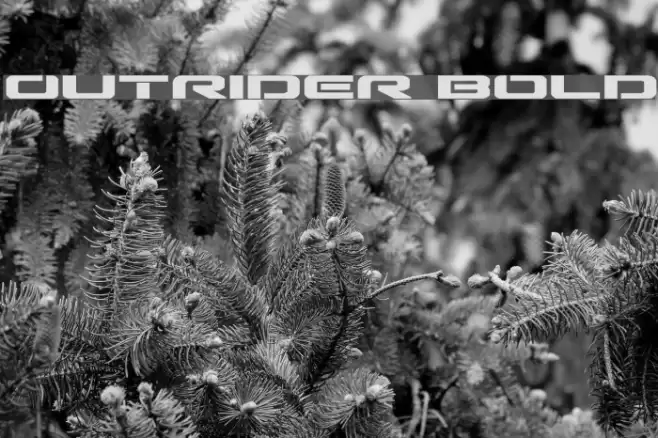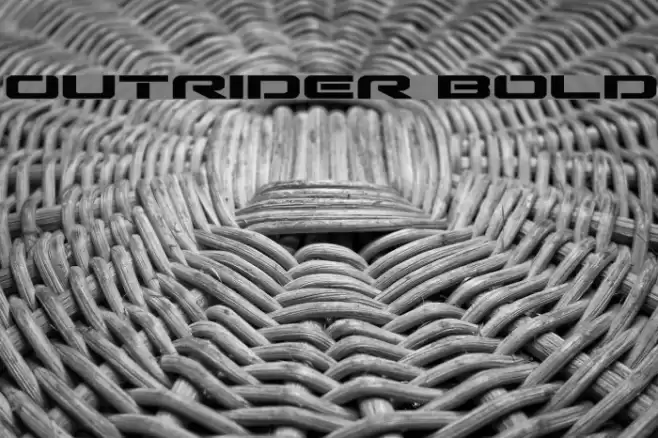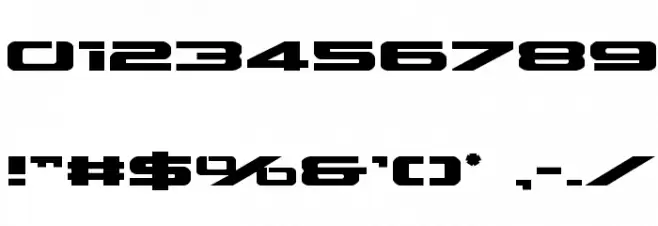
Outrider Bold Font
Outrider Bold Description
This font features a bold and futuristic design with sharp, angular edges and a geometric structure. The uppercase letters are wide and commanding, while the lowercase letters maintain a consistent style that complements the uppercase. The numerals are bold and distinct, ensuring clarity and readability. Special characters are designed to match the overall aesthetic, providing a cohesive look. The font's strong presence makes it ideal for attention-grabbing headlines and modern design projects.
A bold, futuristic font with sharp, angular edges and a geometric structure from Uncategorized fonts.
- Proposed Projects: Ideal for sci-fi themed designs, technology branding, video game titles, and modern posters.